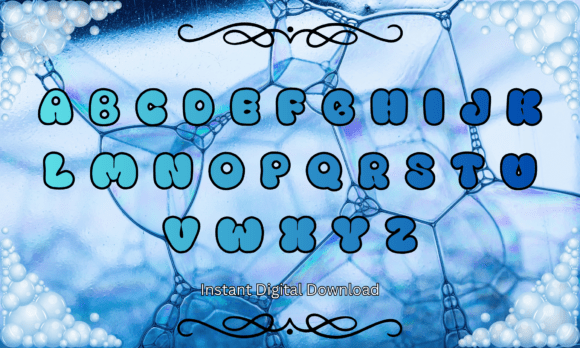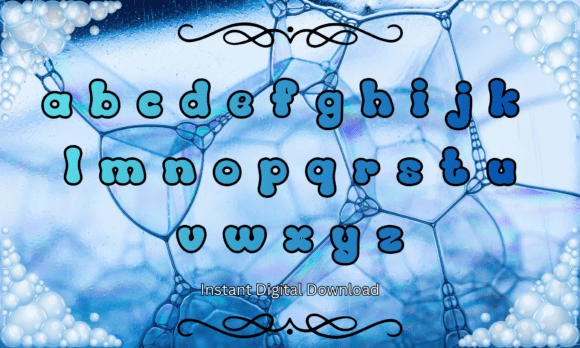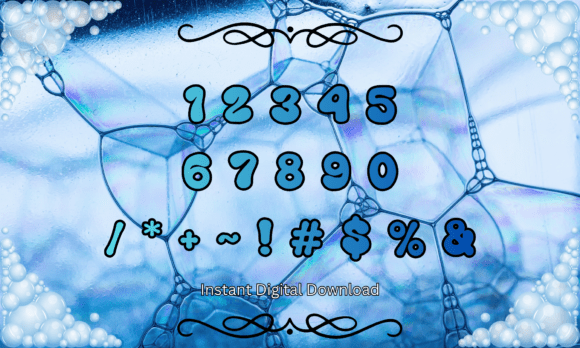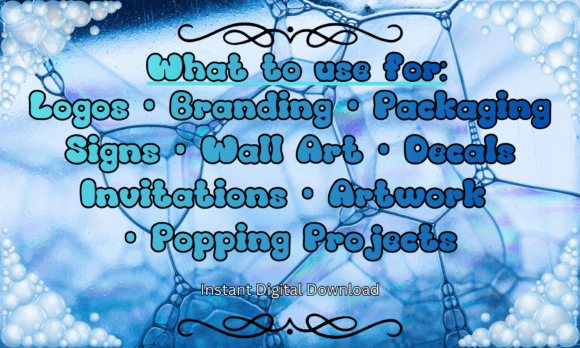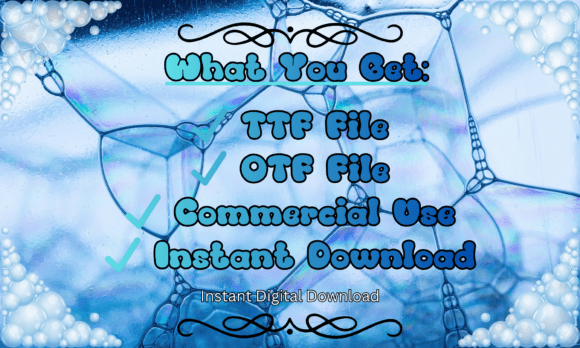
Bring a Whimsical Touch to Your Designs with the Bubble Foam Font
Have you ever gazed at a soap bubble, mesmerized by its delicate, rounded shape? That’s exactly the inspiration behind the Bubble Foam Font – a soft, rounded display font that adds a playful twist to your designs. Perfect for stickers, branding, and creative projects, this font brings a clean yet whimsical feel to any design.
As a designer, you know how crucial it is to have the right font to match your brand’s personality. The Bubble Foam Font is an invaluable addition to your design arsenal, offering a unique aesthetic that’s both cute and bold. Its rounded edges and clean readability make it ideal for a variety of applications, from kids’ designs and playful brands to small business logos and packaging labels.
Bubble Foam Font Key Features
- Font Family: Bubble Foam Font is a unique display font designed to evoke the look of soap bubbles.
- Unique Characteristics: Each letter and symbol is intricately designed to resemble the texture and appearance of soap bubbles, creating a visually striking effect.
Bubble Foam Font Review
I recently had the chance to work with the Bubble Foam Font, and I must say it’s a unique and quirky addition to any design project. ✨ Here are a few things that really stood out to me:
- Unconventional style: The Bubble Foam Font’s irregular shape and bubbly texture add a touch of whimsy and personality to any text.
- Fun for creative projects: This font is perfect for projects that need a bit of flair, such as children’s books, party invitations, or social media graphics.
- Good for small text: The Bubble Foam Font works surprisingly well for small text, making it a great choice for titles or headings.
However, there are a few limitations to keep in mind: ⚠️
- Limited legibility at large sizes: While the font looks great at small sizes, it can be difficult to read at larger sizes, which may limit its use for headings or titles.
- Not suitable for formal projects: The Bubble Foam Font’s playful style may not be suitable for formal projects or documents where a more professional tone is desired.
Overall, I think the Bubble Foam Font is a fun and creative addition to any designer’s toolkit. While it may have some limitations, it’s a great choice for projects that need a bit of personality and flair.
The Bubble Foam Font is ideal for creating playful, eye-catching designs. Use it for:
- Creative branding and marketing materials.
- Children’s book illustrations and educational materials.
- Party invitations and event decorations.